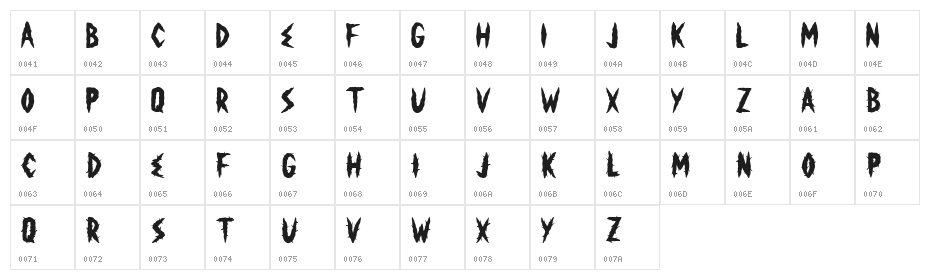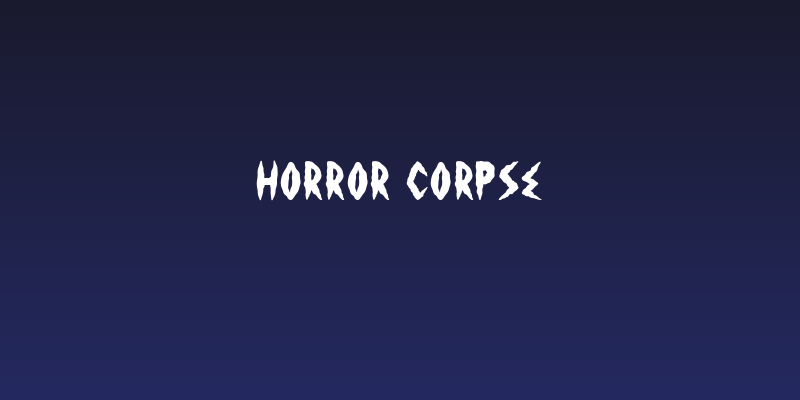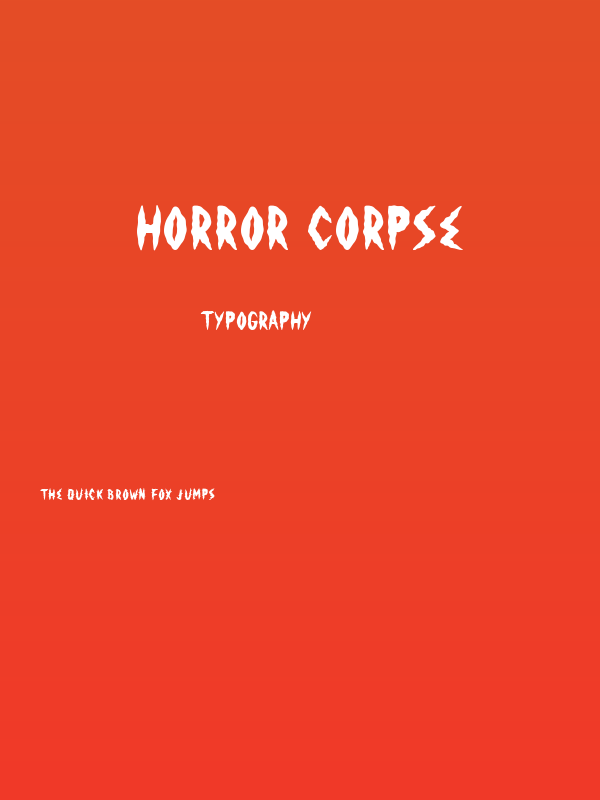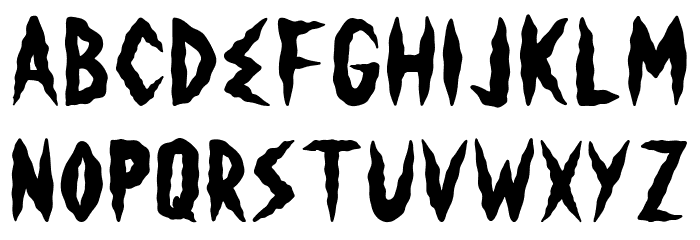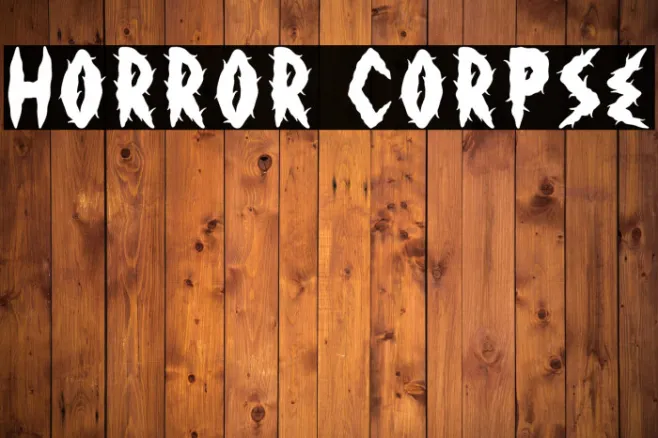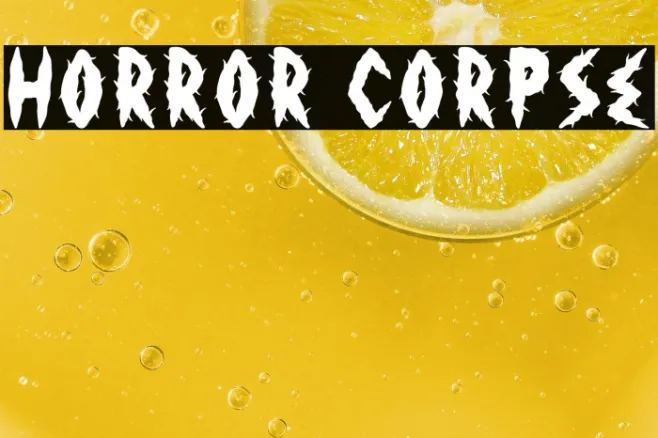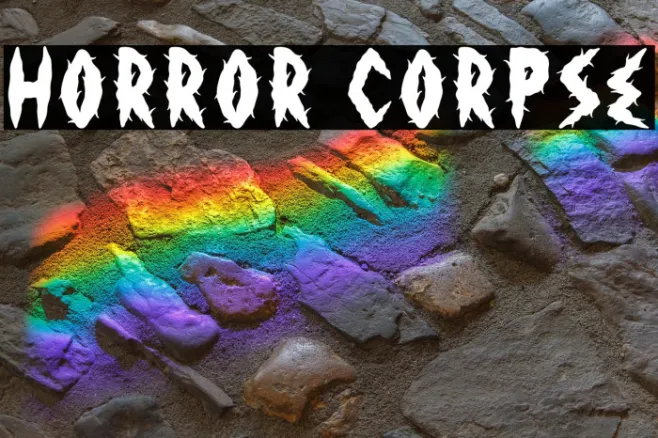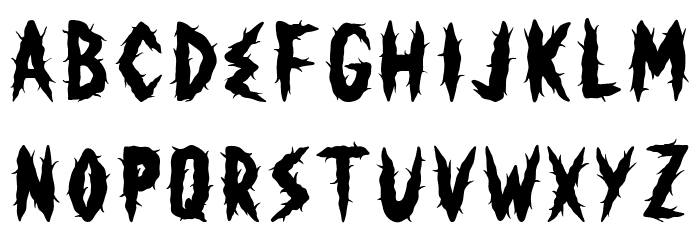
Horror Corpse Font
Horror Corpse Description
This font exudes a chilling and eerie aesthetic, with jagged, irregular edges that mimic the appearance of torn paper or claw marks. Each character is uniquely distorted, adding to the unsettling vibe. The strokes are bold and uneven, creating a sense of chaos and unpredictability. The overall design is reminiscent of horror movie titles or Halloween-themed graphics, making it perfect for projects that require a spooky or macabre touch. The font's dramatic style is eye-catching and impactful, ensuring that any text set in this typeface will stand out.
| Proposed Projects | Perfect for Halloween posters, horror movie titles, haunted house flyers, and spooky event invitations. |